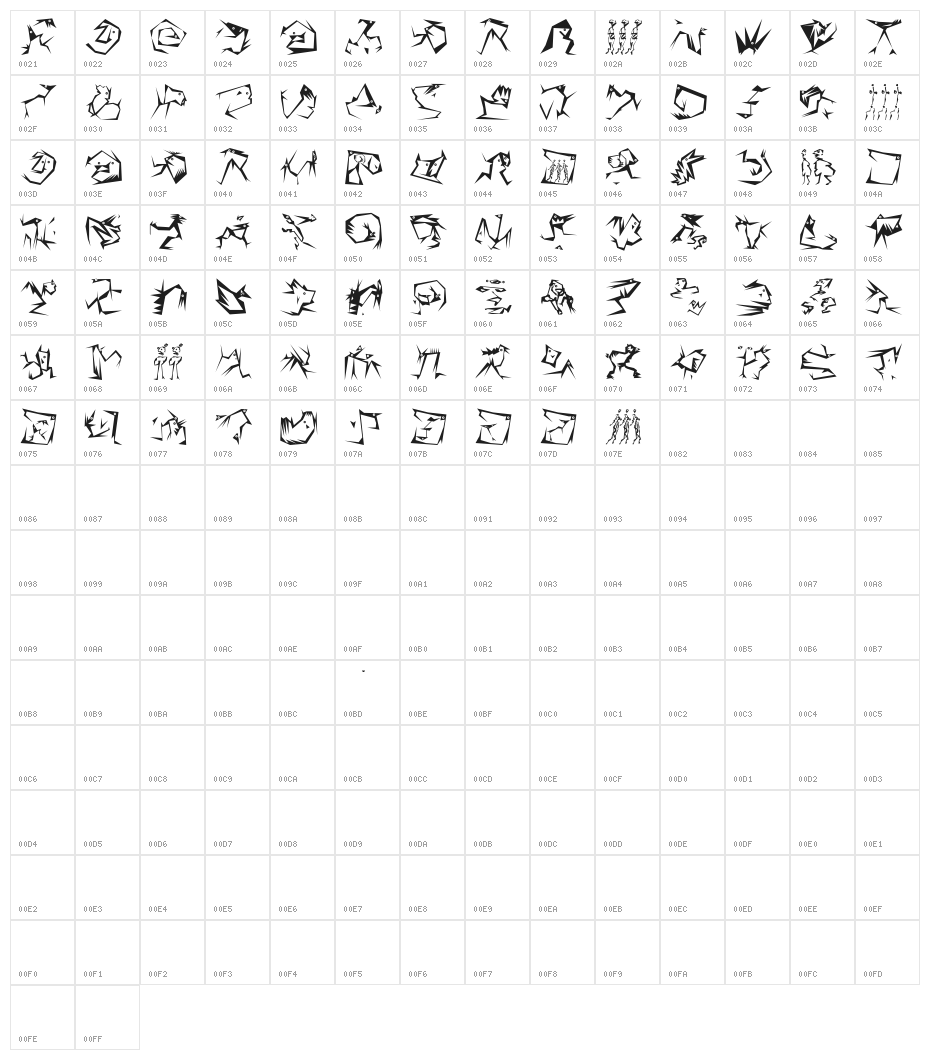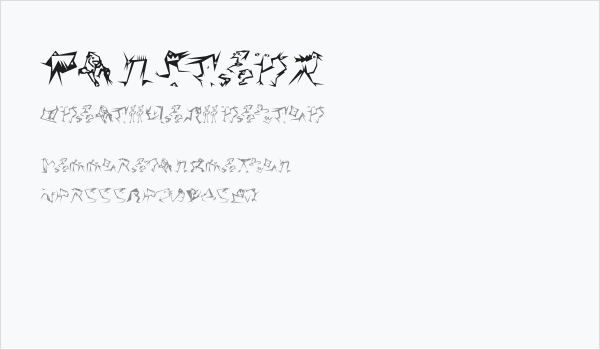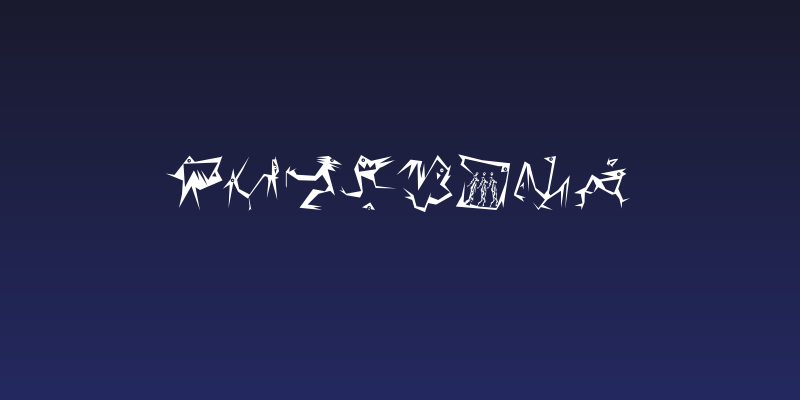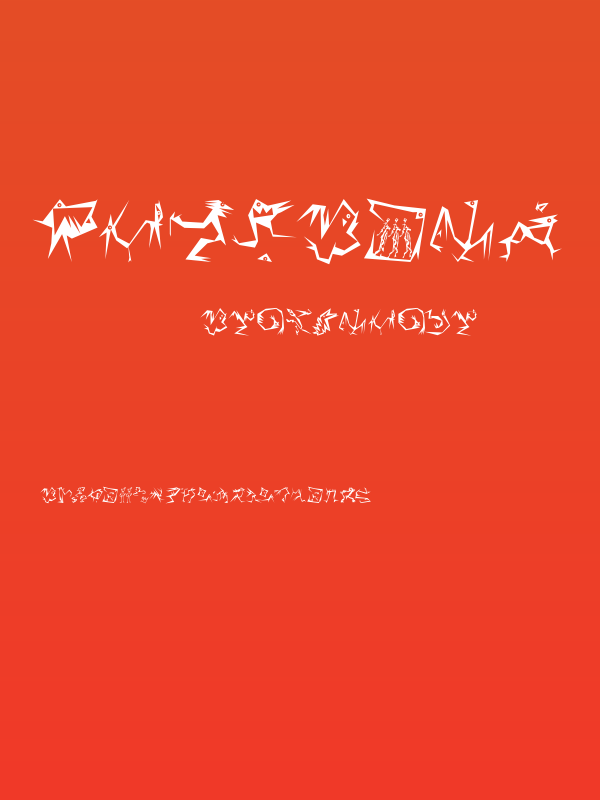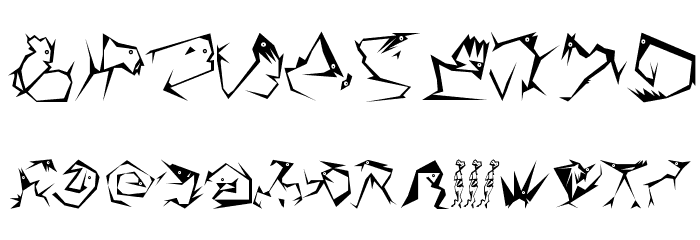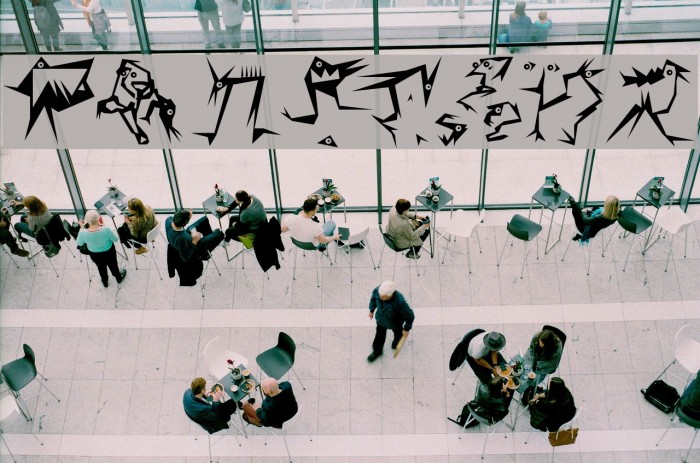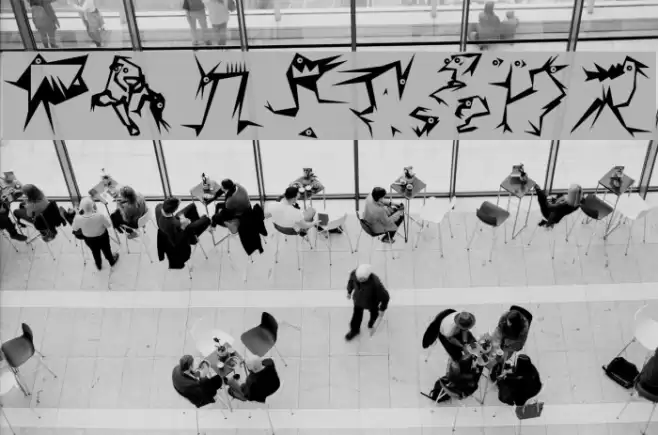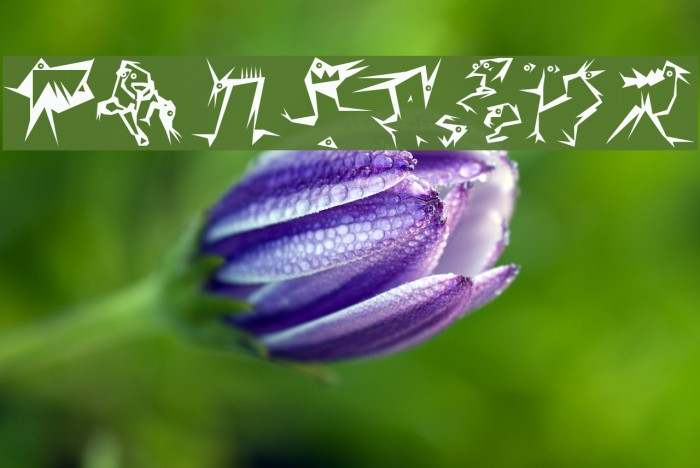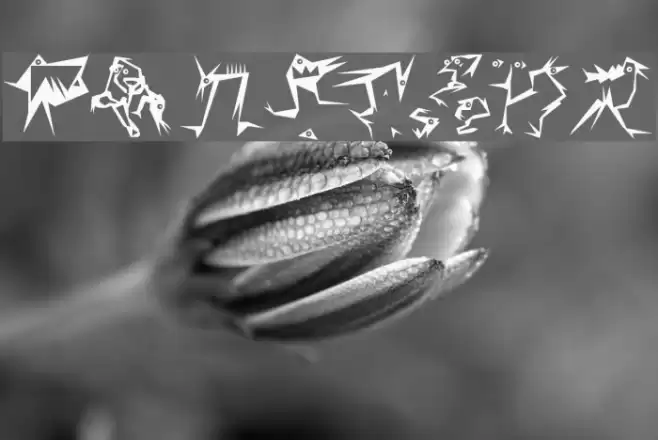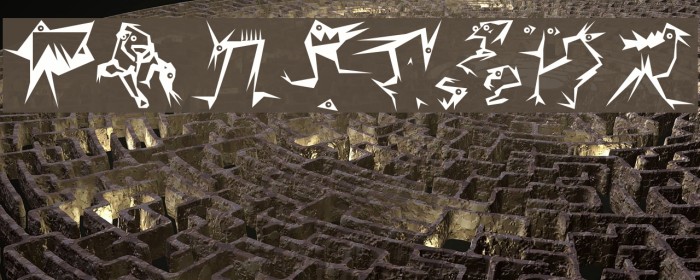
XamStern Font
| 全体的なスタイル | Modern, Artistic |
| 用途 | Logos, Headlines, Artistic designs |
| おすすめプロジェクト | Ideal for album covers, posters, graffiti art, and other creative projects requiring a bold, artistic statement. |